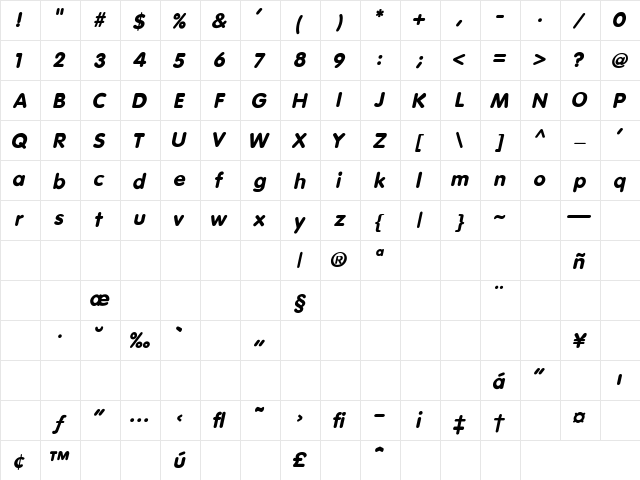
Vague_Rnd-X Regular
Design Context for Vague_Rnd-X Typeface
Vague_Rnd-X offers clean, dependable letterforms without strong stylistic allegiance, making it a practical choice for designers who need flexibility.
Pro Tip: Use Vague_Rnd-X in both headline and body roles to test its range before committing to a single application.